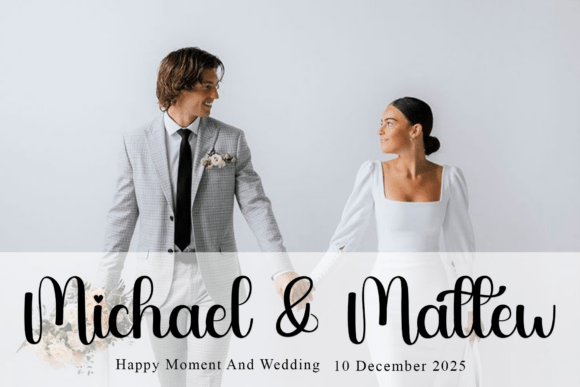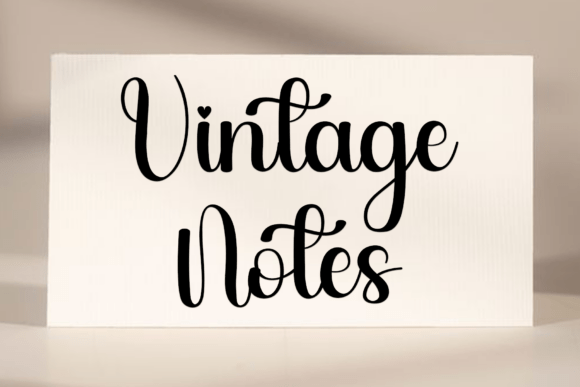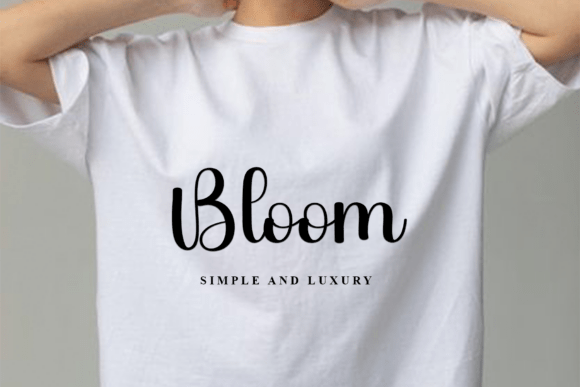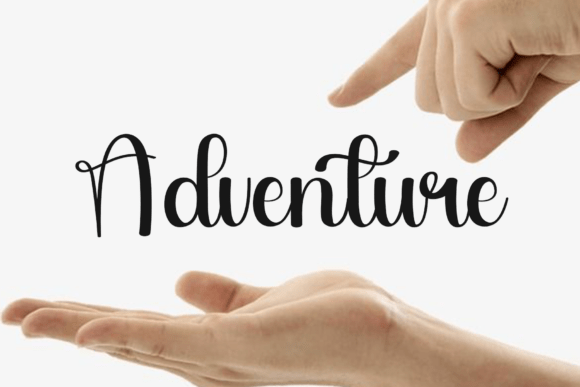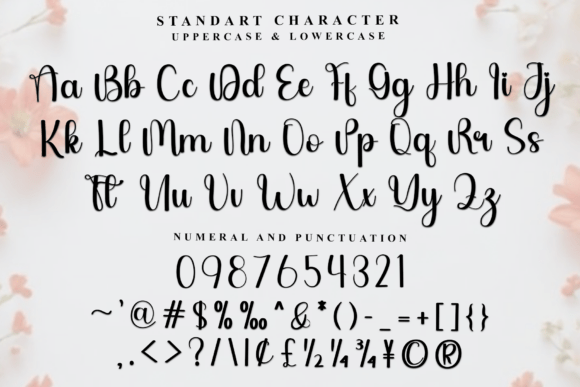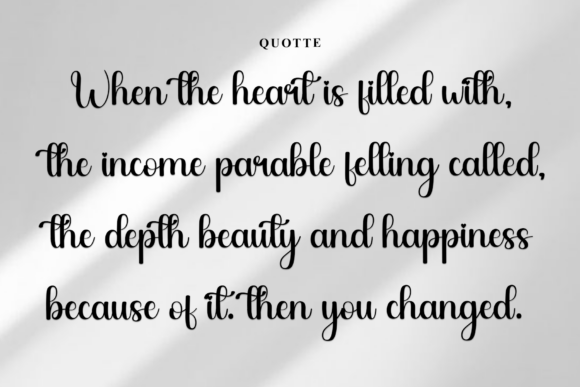
The Perfect Handwritten Touch: Beloved Mother Font
Have you ever been in the midst of a creative project, struggling to find the perfect font to bring your design to life? You browse through numerous options, but none seem to capture the essence of your vision. That’s when you stumble upon the Beloved Mother Font – a timeless and beautiful handwritten font that will make your designs stand out.
Beloved Mother Font is a stunning choice for creating eye-catching logos, branding, and quotes. Its unique and beautiful touch adds a personal and emotional connection to your design, making it truly special. As a designer, you’ll appreciate the versatility and elegance of this font, which can be used in a variety of projects, from wedding invitations to advertising campaigns.
Beloved Mother Font Key Features
- Font Family: Beloved Mother, a beautiful and elegant script font designed to evoke a sense of warmth and love.
- Unique Characteristics: Features a unique, flowing script style with subtle flourishes and swashes, perfect for creating a sense of elegance and sophistication.
Beloved Mother Font Review
As a designer, I had high hopes for the “Beloved Mother Font”. In many ways, it delivers on its promise of a warm and inviting typeface. ✨ The subtle imperfections and hand-drawn feel give it a unique character that’s perfect for projects where you want to evoke a sense of nostalgia or homey charm.
- ✨ Beautifully crafted ligatures and connections between letters that add to its organic feel.
- ✨ A wide range of weights and styles, making it suitable for various design applications.
- ✨ Friendly and approachable tone that works well for branding, packaging, and editorial design.
However, there are some limitations to consider. ⚠️ The font may not be the best choice for projects where precision and clarity are crucial, such as technical documentation or financial reports.
- ⚠️ Some letters may be difficult to read at small font sizes due to their complex shapes.
- ⚠️ The font may not be suitable for digital interfaces or mobile apps where users need to quickly scan and understand information.
Overall, I think the “Beloved Mother Font” is a great choice for designers looking to add a touch of warmth and personality to their projects. While it may not be the best fit for every design application, it’s a solid addition to any font collection.
Beloved Mother Font is a beautiful, elegant font that is perfect for:
- Baby shower invitations and decorations.